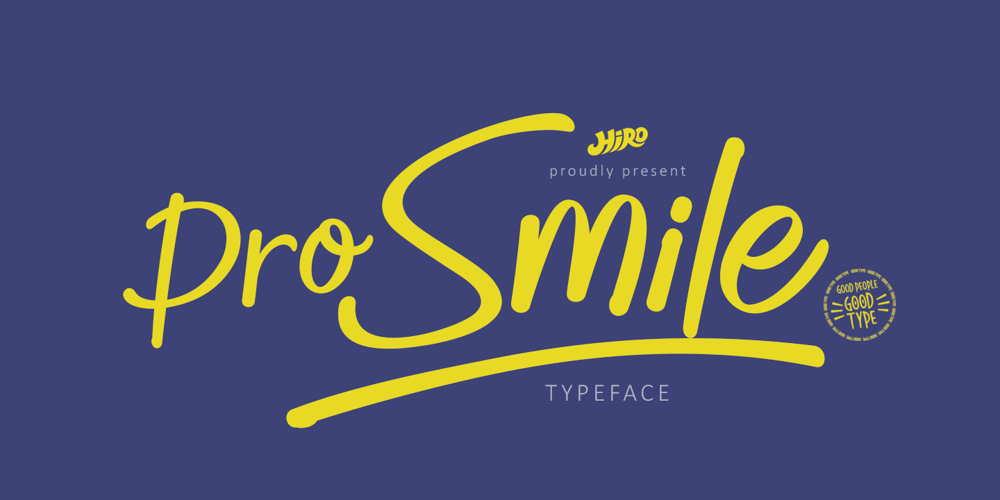
Pro Smile Font Family was designed by Chairul Ashar and published by HIRO.std. Pro Smile contains 1 styles and family package options. Pro Smile typefaceThis font describes about funny, dynamic, humanist, easy going, easy to use and will bring a good harmony when the letters are connected and paired each other. FEATURES- Support Opentype Features- Support Ligatures- Uppercase- Lowercase- Numbering and Punctuations- Multilingual Support- Works on PC or MacUSE Pro Smile works great in any branding, logotype, social media posts, advertisements, product packaging, product designs, label, invitation, stationery and any projects that need handwriting brush taste.